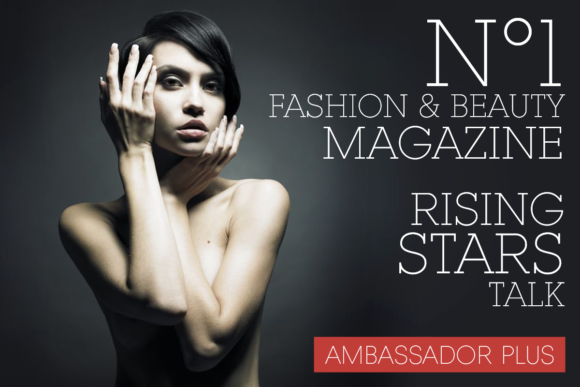
The Ambassador Plus Font: A Comprehensive Guide for Designers
Have you ever been in the middle of a design project, and suddenly, you’re stuck on finding the perfect font? I recall a recent experience where I was working on a branding project for a client, and I just couldn’t find a font that captured the essence of their business. That’s when I stumbled upon the Ambassador Plus font, and it completely transformed my design. In this article, we’ll dive into the world of Ambassador Plus, exploring its features, and how to make the most of it in your designs.
A Personal Encounter with Ambassador Plus
I was working on a logo design for a startup, and I needed a font that was modern, yet elegant. After hours of searching, I came across Ambassador Plus, and it was love at first sight! The clean lines, the versatility of the font family – it had everything I needed. I was particularly impressed with the four styles it offered, which allowed me to experiment with different looks until I found the perfect fit.
Ambassador Plus: The Basics
Ambassador Plus is a display sans and display slab font family, published by Juraj Chrastina. It consists of four styles and was first released in 2013. This OpenType OTF font comes with a glyph count of 217, supporting Basic Latin/English letters, uppercase and lowercase, West European diacritics, Euro, digits, and ligatures. The font also features kern and liga OT features, making it suitable for Western European languages.
- ✨ Versatility: With four styles to choose from, Ambassador Plus offers a range of design possibilities.
- ✅ Elegant Lines: The clean and modern design makes it perfect for logos, headings, and titles.
- 💡 OpenType Features: The font supports advanced typography features like ligatures and kerning, giving you more control over your text.
- 🤔 Limited Glyph Count: With 217 glyphs, it might not cover every language or special character you need.
- ⚠️ Not Suitable for Body Text: Due to its display nature, Ambassador Plus might not be the best choice for longer texts or body paragraphs.
Ambassador Plus was created by Juraj Chrastina, a designer with a passion for typography. Inspired by modernist architecture and the simplicity of sans-serif fonts, Chrastina aimed to create a font family that was both elegant and versatile. The result is Ambassador Plus, a font that finds its place in various design projects, from logos to posters.
Q: What type of projects is Ambassador Plus best suited for?
A: Ambassador Plus is ideal for projects requiring a modern, elegant look, such as logos, titles, posters, and headings.
Q: Can I use Ambassador Plus for body text?
A: While possible, Ambassador Plus is a display font, making it more suitable for short texts and headings rather than long body paragraphs.
Q: Does Ambassador Plus support OpenType features?
A: Yes, Ambassador Plus supports OpenType features like ligatures and kerning, enhancing its usability in professional designs.
Ambassador Plus is a versatile and elegant font family that can elevate your designs with its modern and clean lines. Whether you’re working on a logo, a poster, or any project requiring a sophisticated look, Ambassador Plus is definitely worth considering. With its range of styles and support for OpenType features, it’s a valuable addition to any designer’s toolkit.